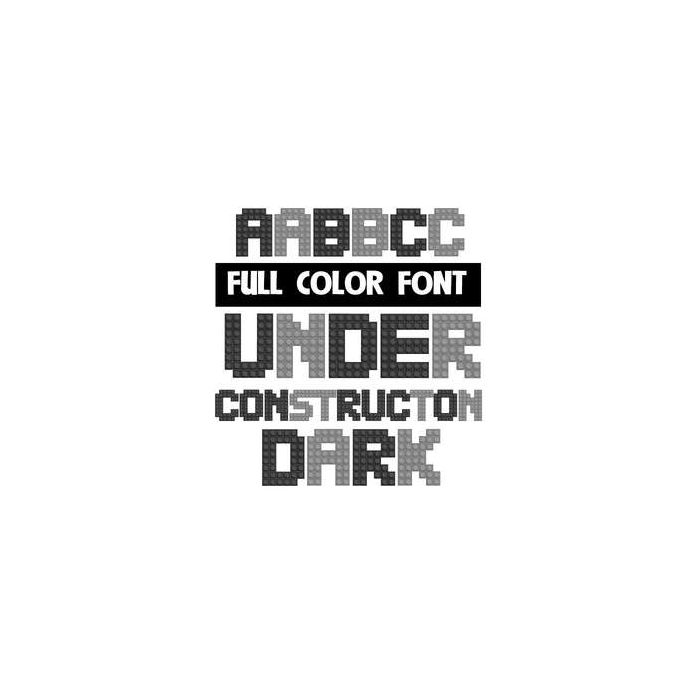
This full-color features construction bricks made from dark colors. This font works best for titles, displays, posters and more. Please note color fonts will show as black in non compatible programs. This font type is compatible with Silhouette Studio.